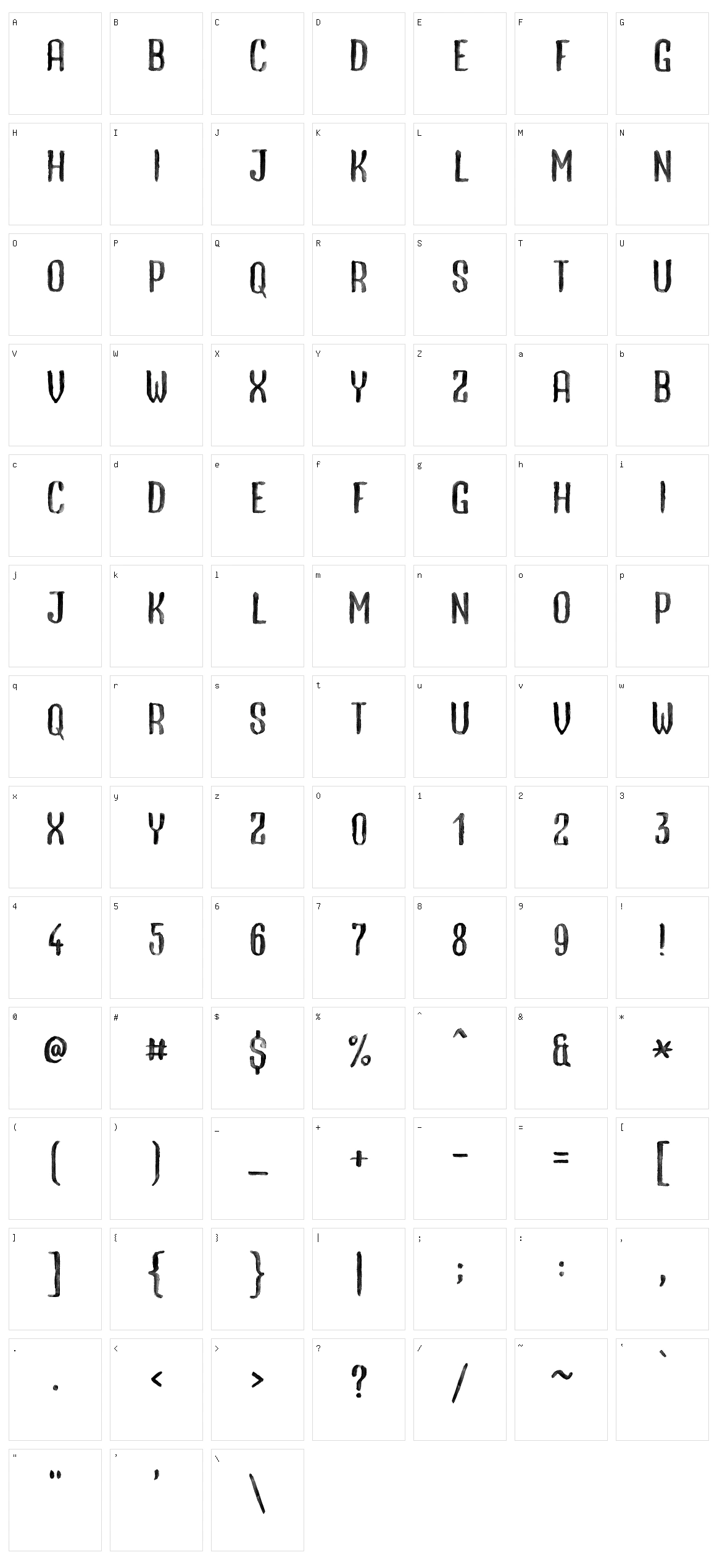
I generally prefer simple fonts with as few points as it's possible but this time
I decided to create a font emulating shades of grey and it requires a lot of points.
Creating the original design with a brush, watercolours and paper was rather fast and easy
but then I spend more than a month experimenting with different approaches and programs
to get the best result. In the end I wrote my own converting tool and after a lot
of manual tweaking I finally end up with a font that's under 1 MB.
It's still rather big and slow but it's much better than my previous prototypes. =)
Vìtinou se ve svých fontech snaím poèet øídicích bodù omezit na nutné minimum,
ale tentokrát jsem se rozhodl udìlat font, který by rastrováním emuloval odstíny edi a to vyaduje
skuteènìho hodnì bodù.
Vytvoøení prvotního návrhu pomocí tìtce a vodových barev bylo pomìrnì rychlé a snadné,
ale pak jsem více nez mìsíc strávil experimentováním s rùznými pøístupy a programy,
abych se dopracoval skuteènì nejlepímu výsledku. Nakonec jsem si napsal vlastní konverzní
utilitu a po dalích ruèních úpravách jsem se koneènì dobral fontu, který má ménì ne 1 MB.
Je to stále pomìrnì hodnì a font se tak pomalu vykresluje, ale proti pøedchozím prototypùm je to znatelné vylepení. =)